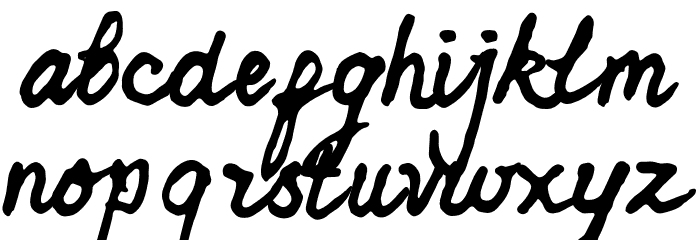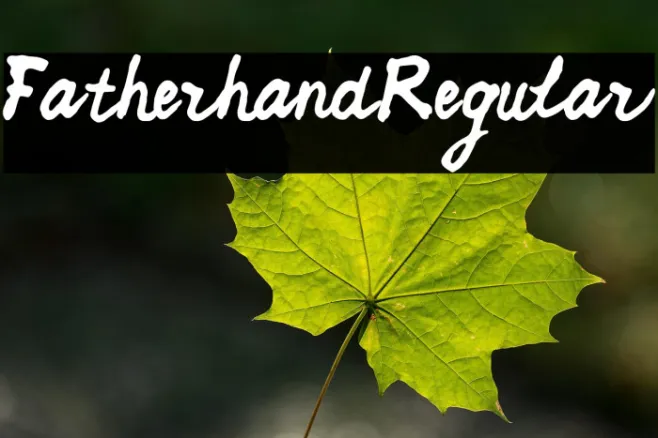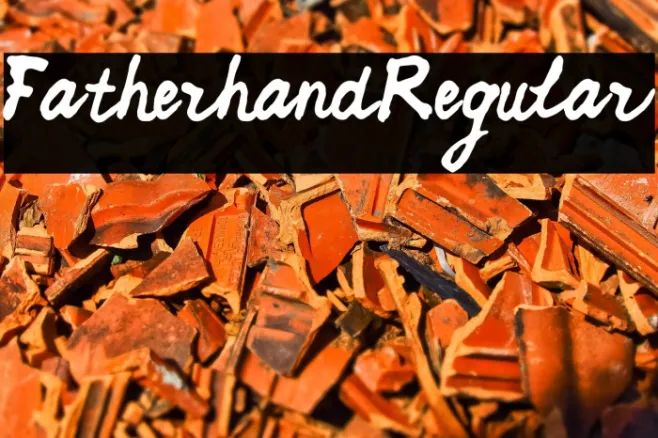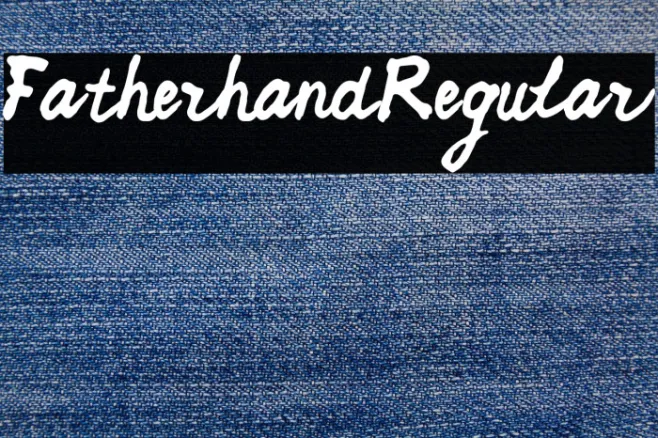
FatherhandRegular Font
This font features a bold and expressive handwritten style, characterized by its dynamic and fluid strokes. The uppercase letters are robust and slightly slanted, giving a sense of movement and energy. The lowercase letters maintain a consistent flow, with some characters extending below the baseline, adding to its casual and artistic appeal. The overall appearance is informal yet impactful, making it suitable for creative and personal projects. The font's unique style is enhanced by its irregularities, which contribute to its charm and individuality.
A bold, expressive handwritten font with dynamic strokes and a casual style.
- Proposed Projects: Ideal for greeting cards, invitations, personal branding, and artistic projects.
- Use Case: Logos, Headlines, Artistic projects